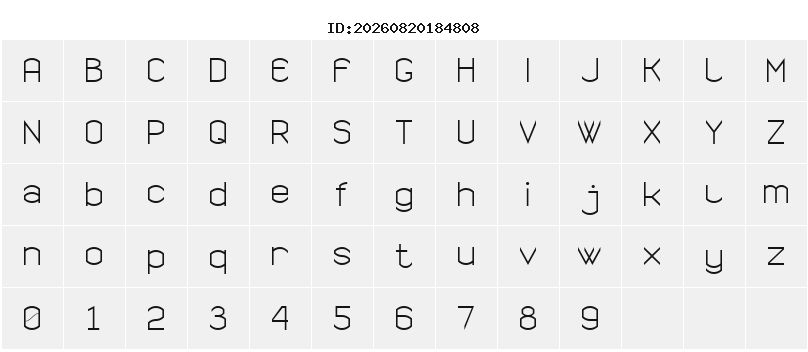
Semi Rounded Sans Serif 7 Preview
• Font Name: Semi Rounded Sans Serif 7
• Font ID: Style-7: Semi Rounded Sans Serif 7: 2015
• Full Font Name: Semi Rounded Sans Serif 7
• PostScript Name: SemiRoundedSansSerif7
• Designer: Sizenko Alexander
• Manufacturer: Style-7
About Semi Rounded Sans Serif 7.ttf
Semi Rounded Sans Serif 7.ttf is a modern, elegant sans-serif font designed for ultimate readability and visual harmony. Perfect for branding, headlines, web design, and print materials.